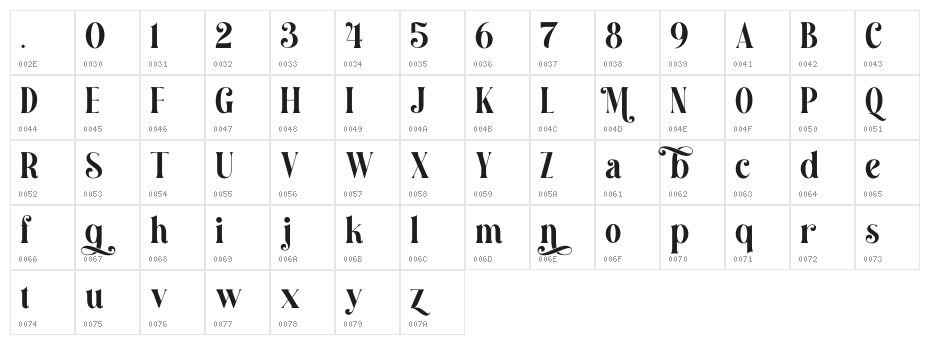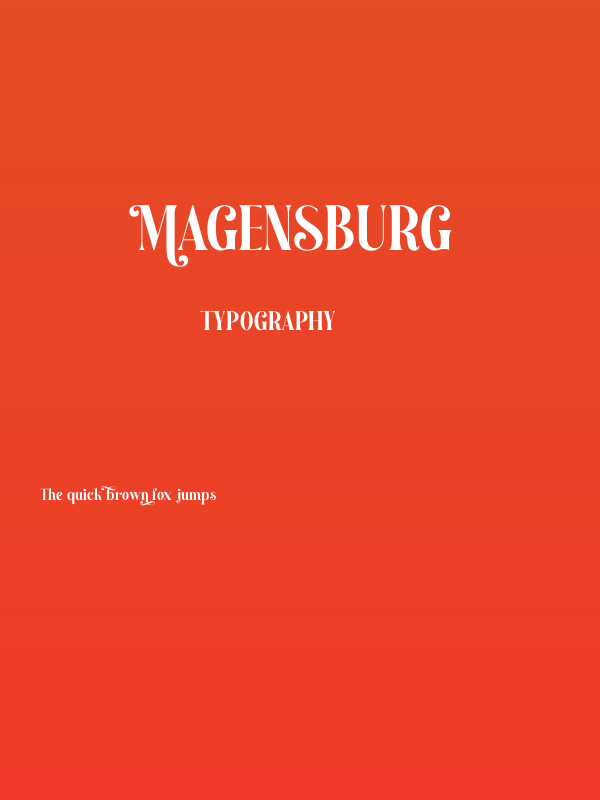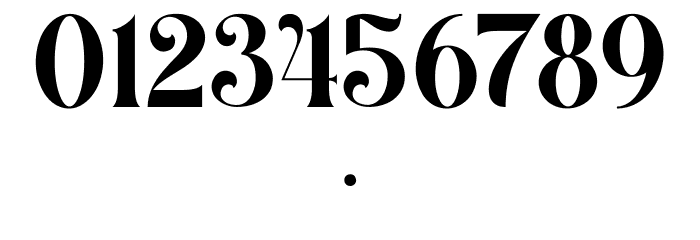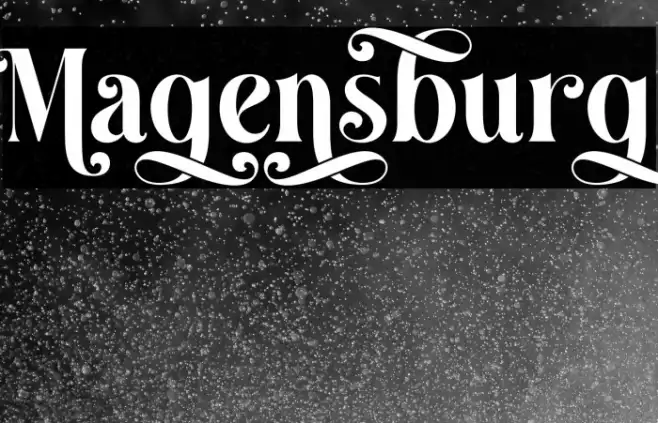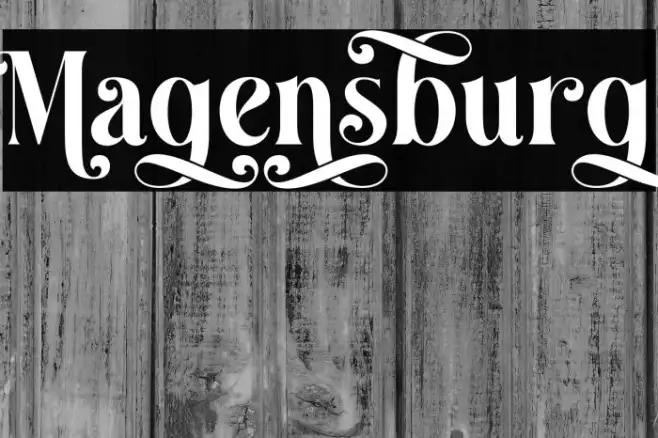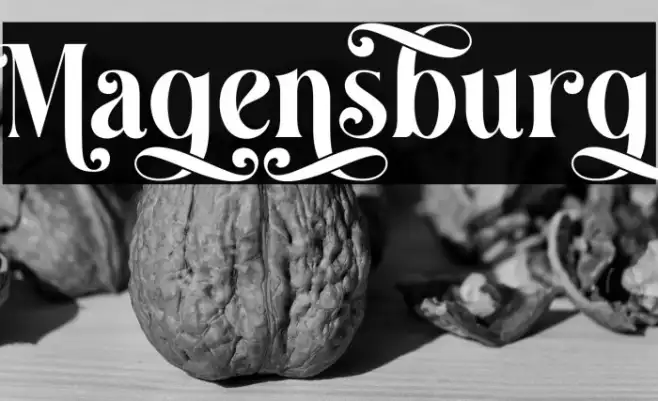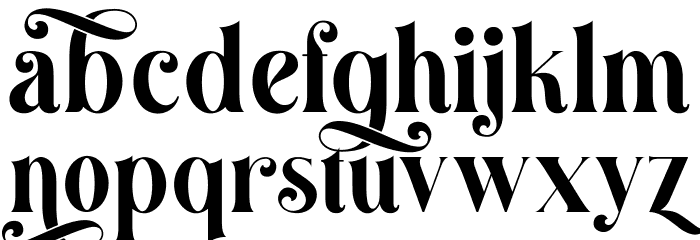
Magensburg Font
Magensburg Description
This font features a bold and decorative style with high contrast between thick and thin strokes. The uppercase letters are adorned with elegant swashes and flourishes, giving it a sophisticated and artistic appearance. The lowercase letters maintain a consistent style with subtle curves and embellishments, enhancing its decorative nature. The numerals are bold and clear, matching the overall aesthetic. This font is ideal for creating eye-catching headlines and logos, where a touch of elegance and flair is desired.
| Proposed Projects | Ideal for branding, logo design, wedding invitations, and editorial headlines. |